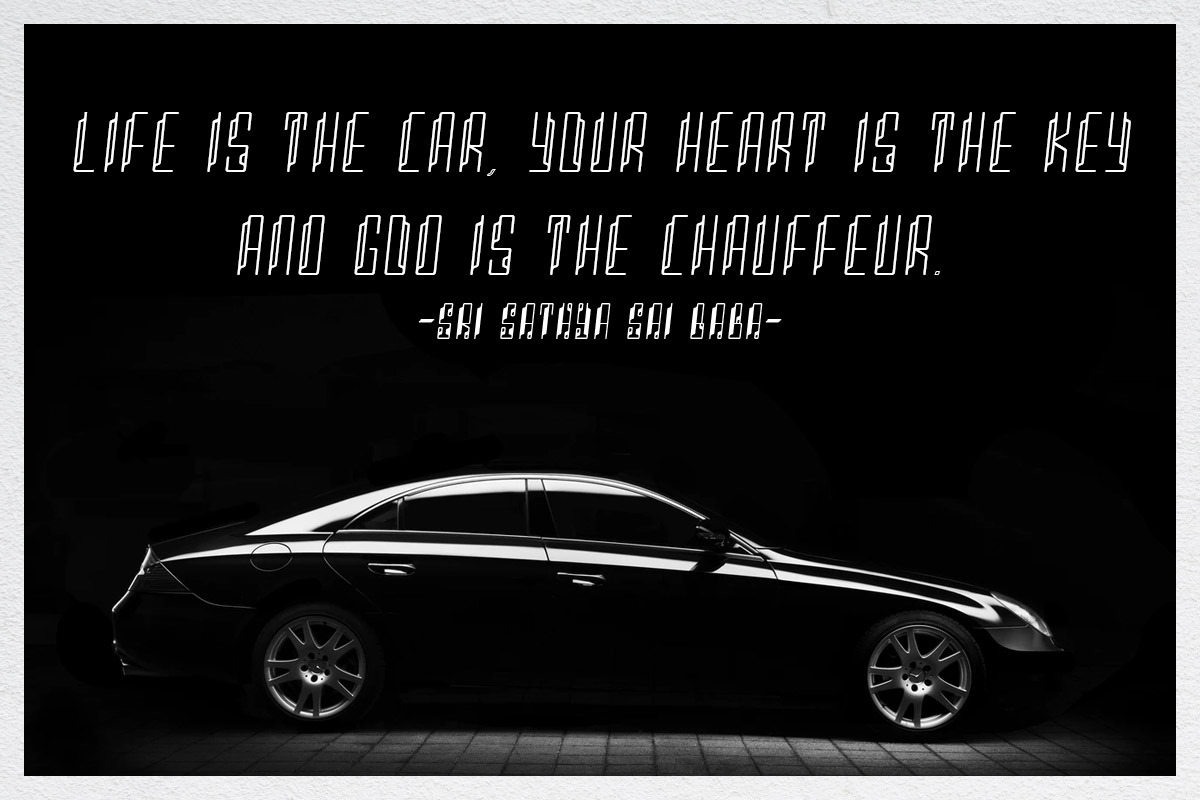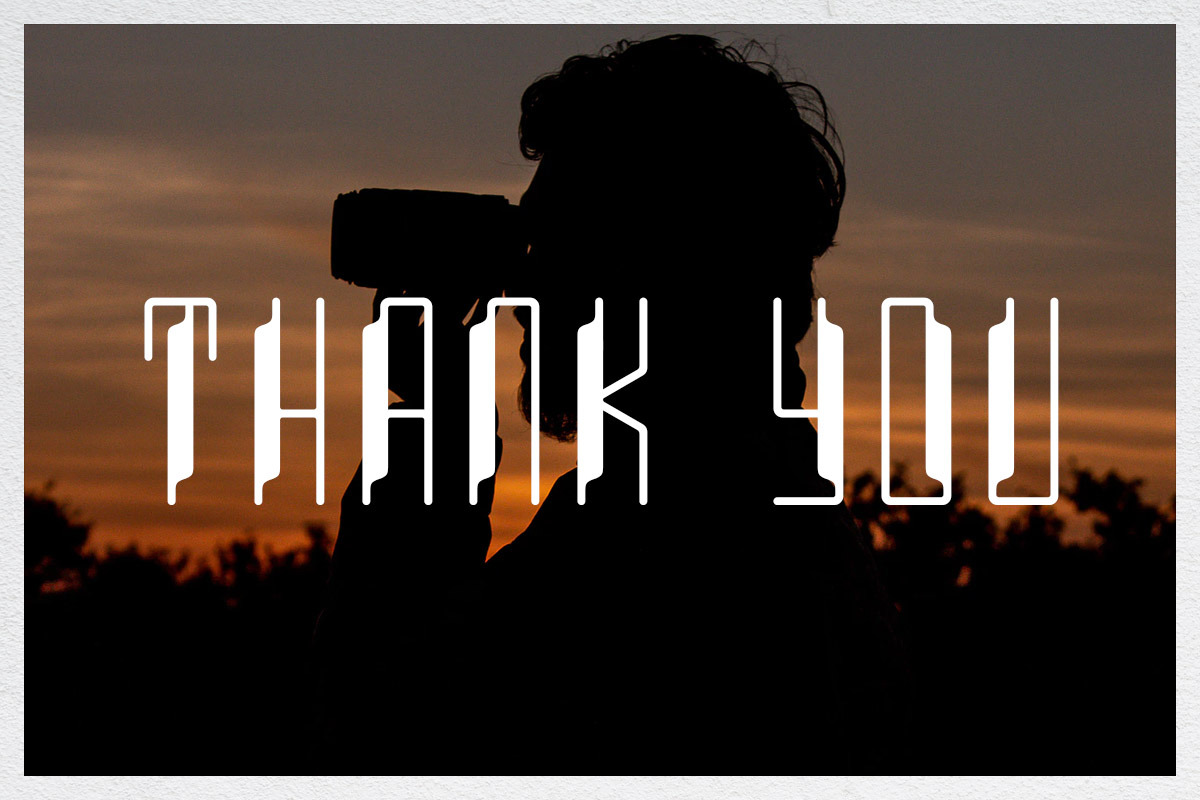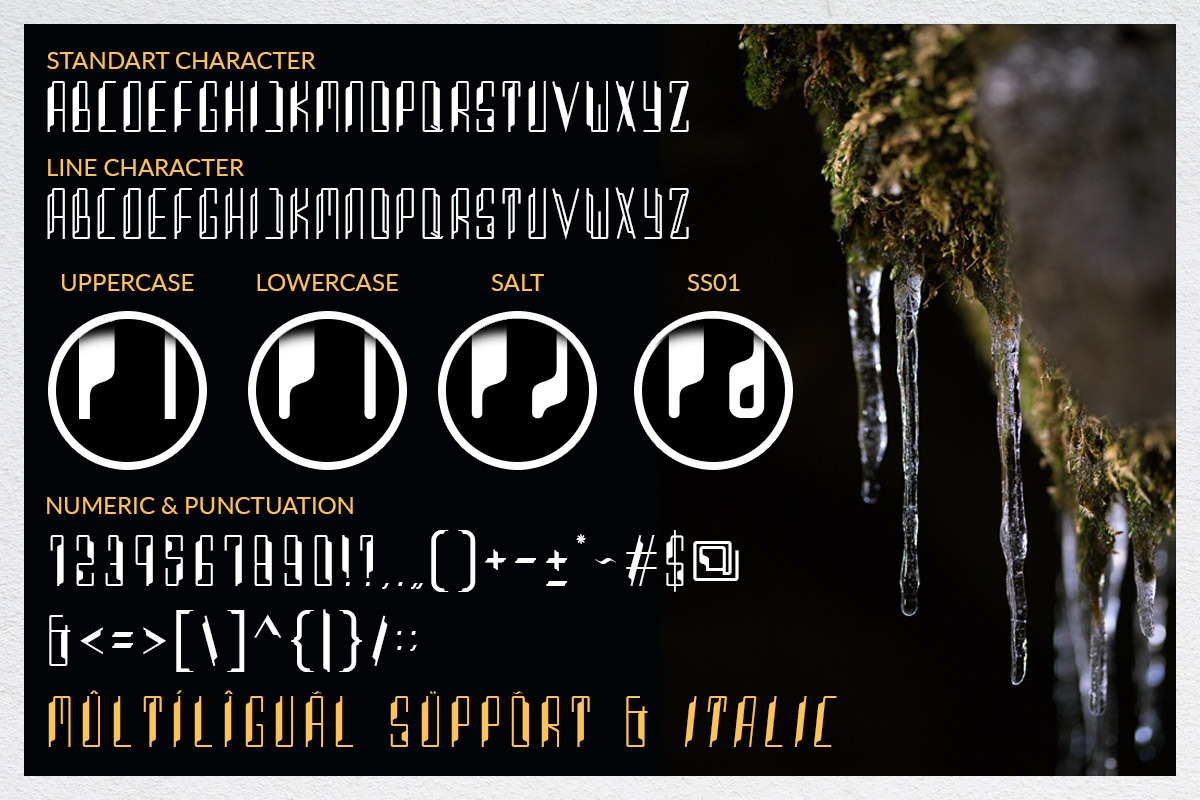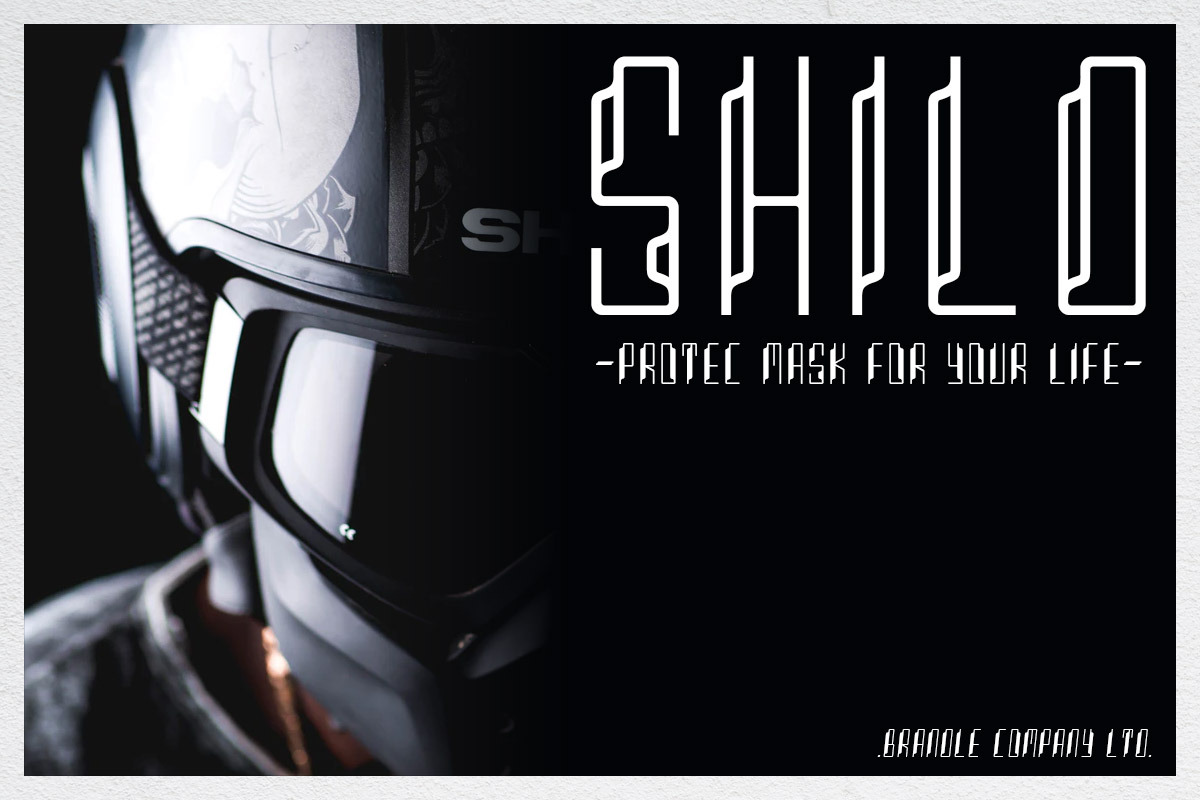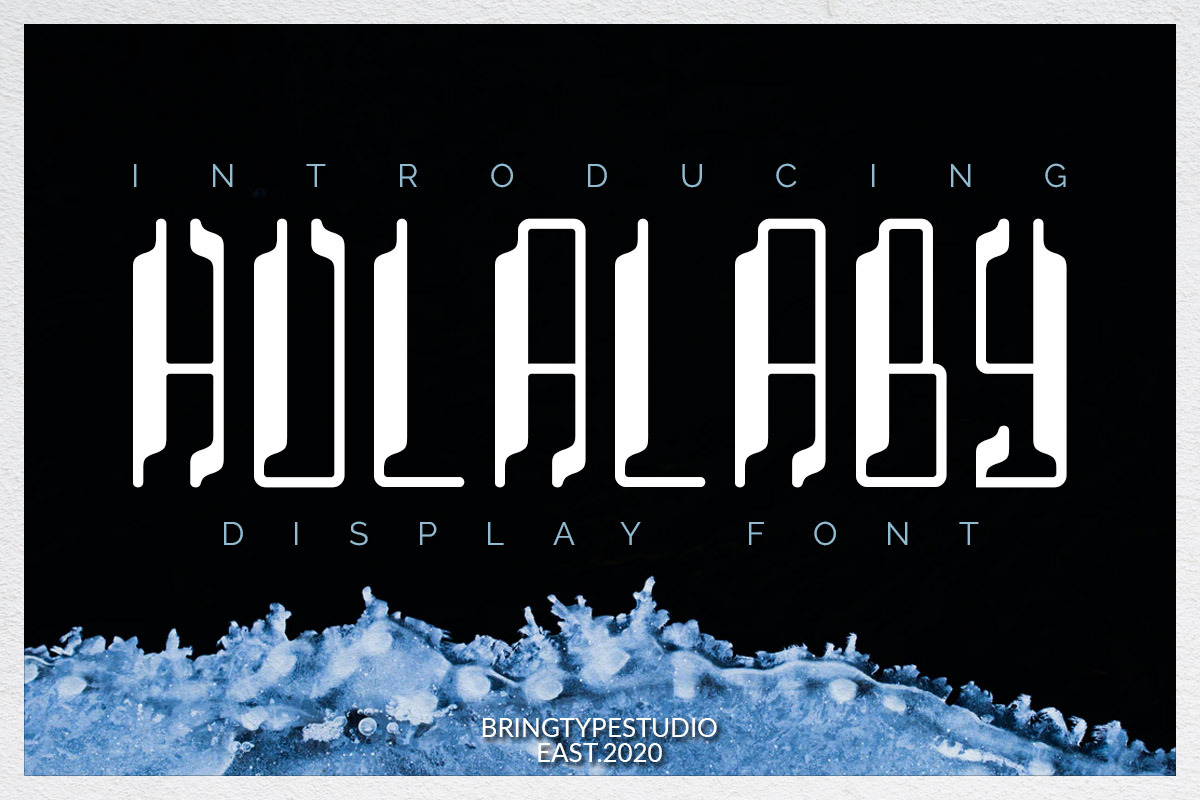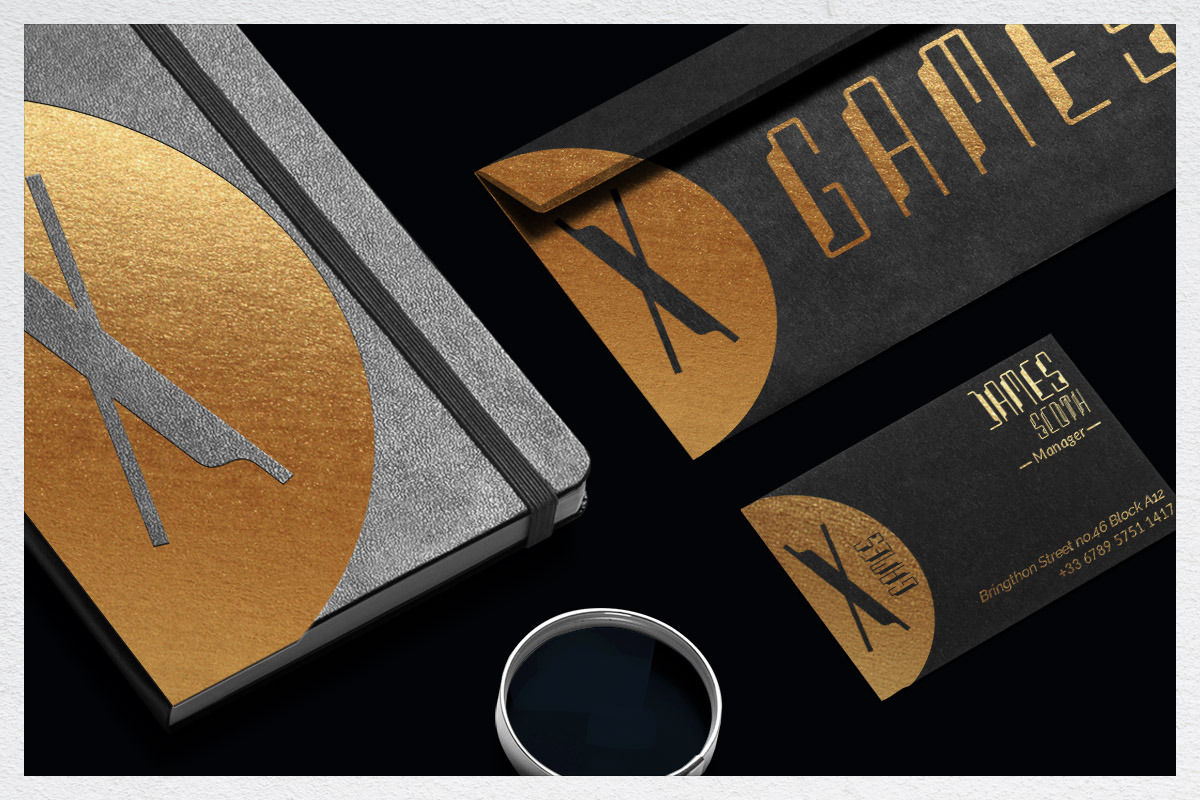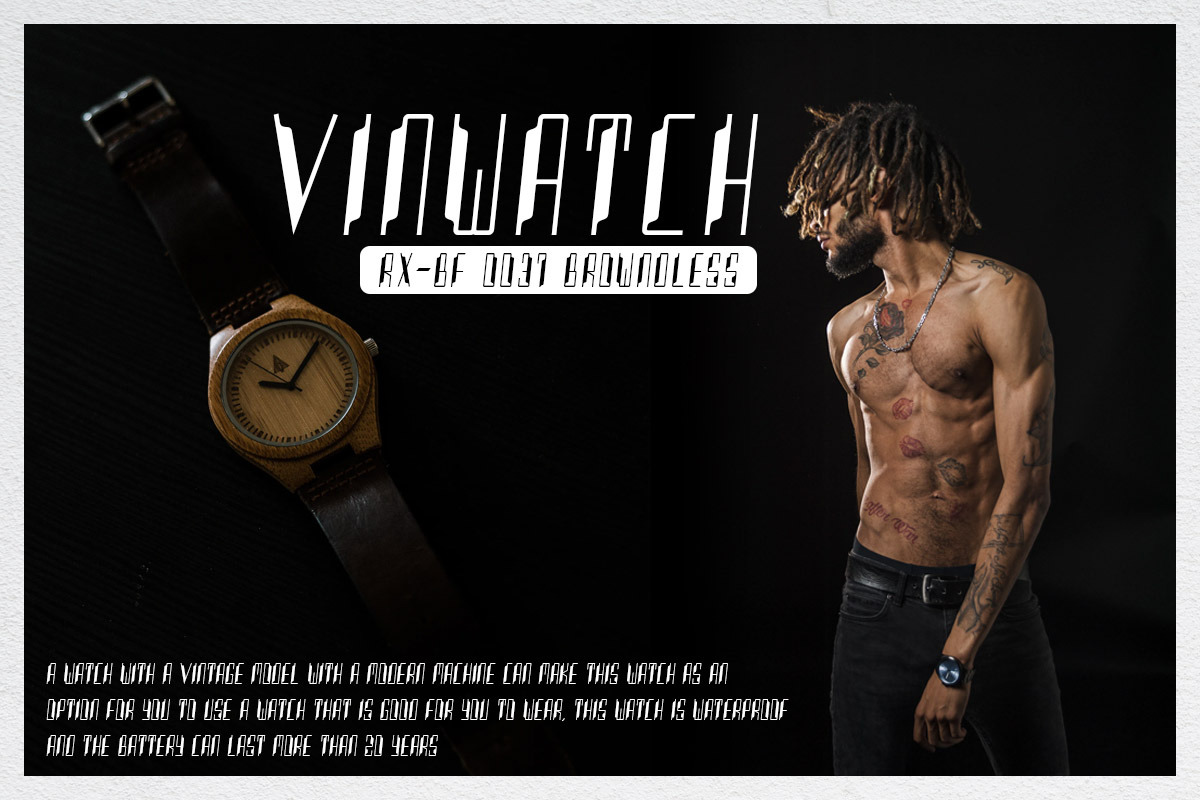
Hulalaby -Duo Fonts
Hello guys...... this is a HULALABY font that is made with precise lines and curves between one and the other, this font is perfect for display writing that makes it professional and others. HULALABY also includes multilingual, numbers, alternatives, punctuation.